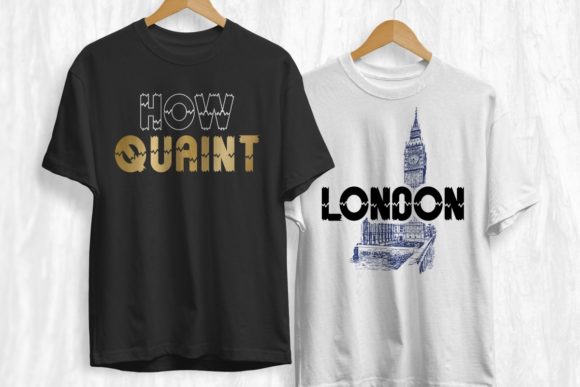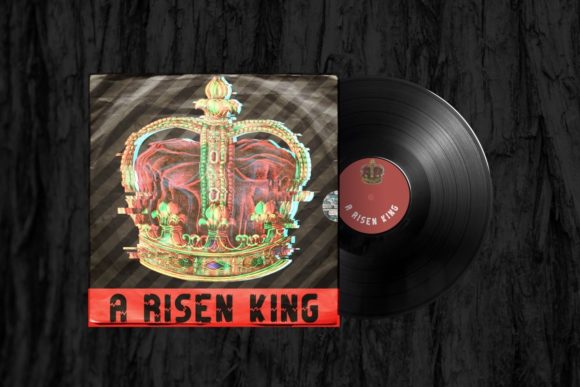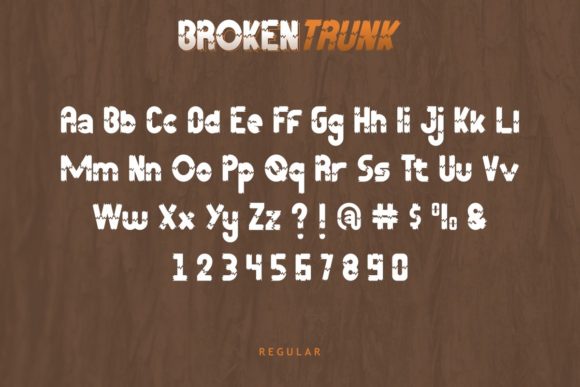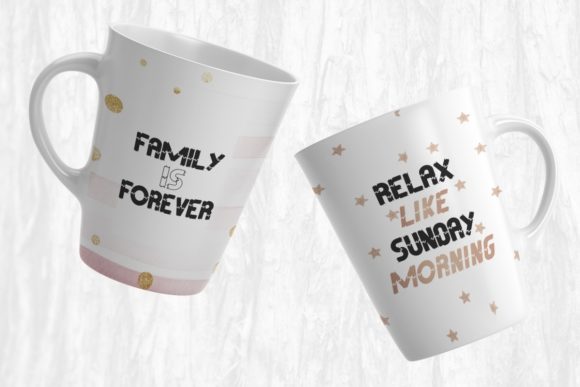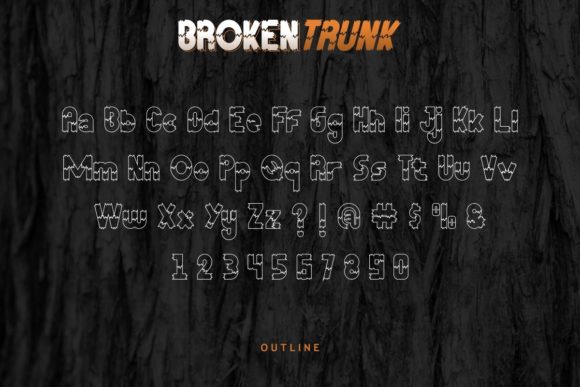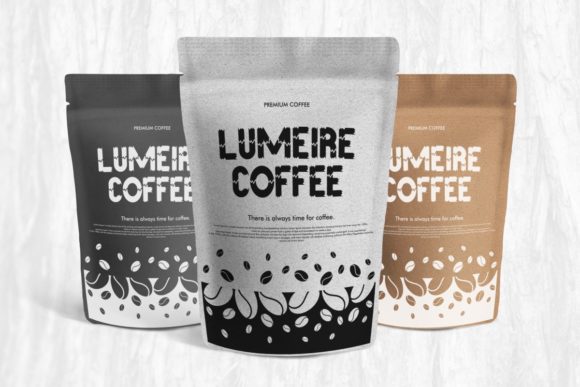
Unleash the Power of Nature with Broken Trunk Font
Are you tired of using the same old fonts for your designs? Do you want to add a touch of uniqueness and boldness to your projects? Look no further than the Broken Trunk Font, a decorative font inspired by the rugged beauty of broken tree trunks in the woods. With its mysterious and strong style, this font is perfect for a wide range of applications, from games and movies to music titles and sports activities.
The Inspiration Behind Broken Trunk Font
The Broken Trunk Font is a creative interpretation of the natural world. The font’s design is based on the rough, weathered texture of broken tree trunks, which have been shaped by the elements over time. The result is a bold and eye-catching font that exudes a sense of power and resilience. The font’s unique style is sure to grab attention and leave a lasting impression on your audience.
Characteristics of Broken Trunk Font
The Broken Trunk Font has several key characteristics that make it stand out from other fonts. Some of its notable features include:
- Bold and strong: The font has a rugged, bold quality that makes it perfect for headlines and titles.
- Mysterious and evocative: The font’s weathered texture gives it a sense of mystery and intrigue.
- Unique and eye-catching: The font’s distinctive style is sure to grab attention and set your design apart from the crowd.
- Versatile: The Broken Trunk Font can be used for a wide range of applications, from digital media to print materials.
Uses for Broken Trunk Font
The Broken Trunk Font is a versatile font that can be used for a variety of projects, including:
- Games: The font’s bold and mysterious style makes it perfect for game titles, logos, and in-game text.
- Movies and TV shows: The font’s strong and evocative style makes it ideal for movie and TV show titles, credits, and promotional materials.
- Music titles: The font’s unique and eye-catching style makes it perfect for music album covers, track listings, and promotional materials.
- Sports activities: The font’s bold and rugged style makes it suitable for sports-related projects, such as team logos, jerseys, and promotional materials.
- Design and crafting projects: The font’s distinctive style makes it perfect for use in various design and crafting projects, such as handmade cards, scrapbooking, and DIY tutorials.
Tips for Using Broken Trunk Font
To get the most out of the Broken Trunk Font, here are a few tips:
- Use it sparingly: The font’s bold style can be overwhelming if overused. Use it sparingly to create emphasis and add visual interest to your design.
- Pair it with complementary fonts: The Broken Trunk Font pairs well with clean, simple fonts that provide a nice contrast to its bold and rugged style.
- Experiment with colors and textures: The font’s weathered texture looks great in a variety of colors and textures. Experiment with different combinations to find the one that works best for your project.
The Broken Trunk Font is a unique and versatile font that can add a touch of boldness and mystery to your designs. With its rugged, weathered texture and strong style, it’s perfect for a wide range of applications, from games and movies to music titles and sports activities. Whether you’re a designer, crafter, or DIY enthusiast, the Broken Trunk Font is sure to inspire your creativity and help you create something truly special.